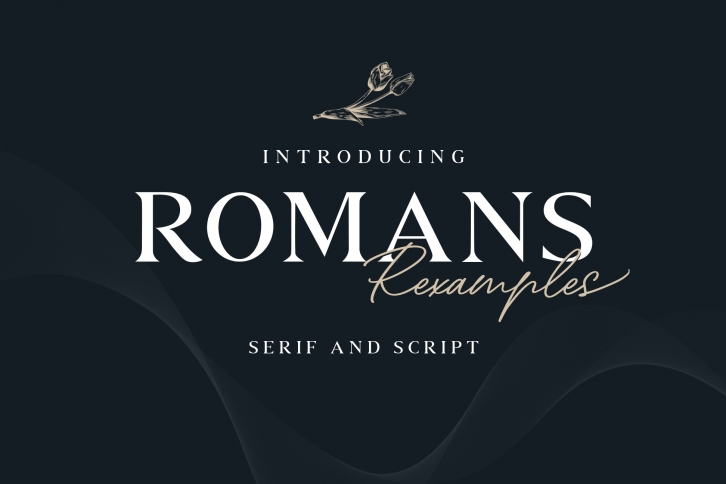
ROMANS Rexamples Font Duo Download
ROMANS Rexamples Duo is a great font that was designed by Cotbada Studio. Imagine the amount of combinations you can create using this font! The archive is 21.38 MB and it was released on February 7, 2019. ROMANS Rexamples Duo looks beautiful on wedding invitations, greeting cards, logos, posters, labels, t-shirt designs, logos, business cards and is perfect for use in ink or watercolor works, fashion, magazines, packaging and food menus, children's books and more!